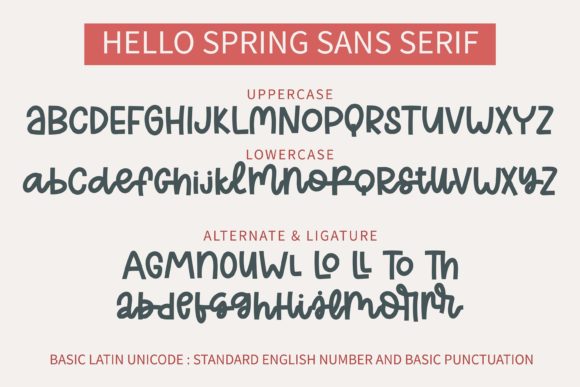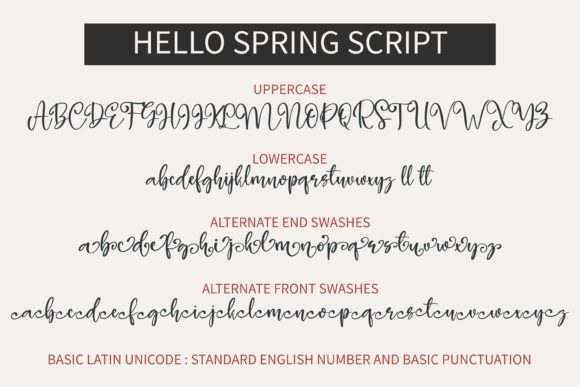
Hello Spring Font
db-ku.com - Script & Handwritten -- Hello Spring is a duo-styled handwritten and sans serif font that feels equally charming and delicate. This font is PUA encoded, which means you can access all of the glyphs and swashes with ease!